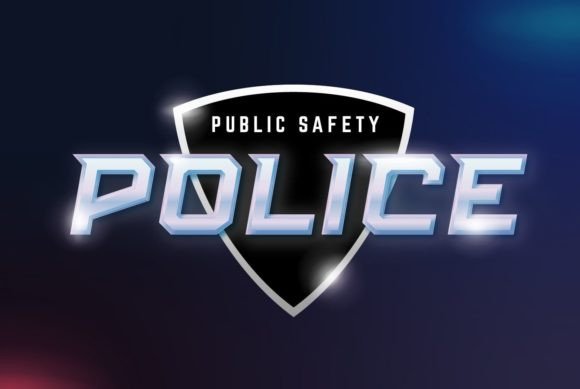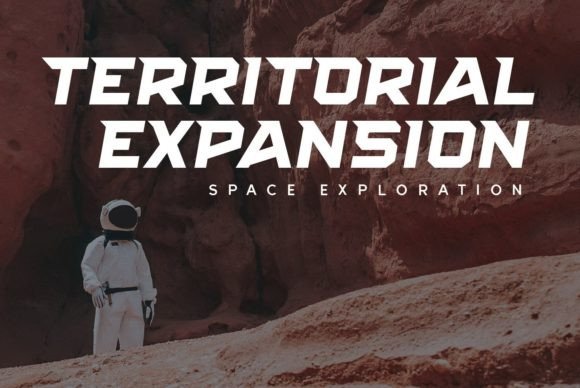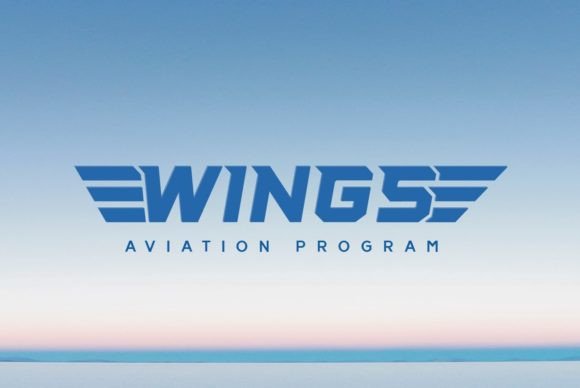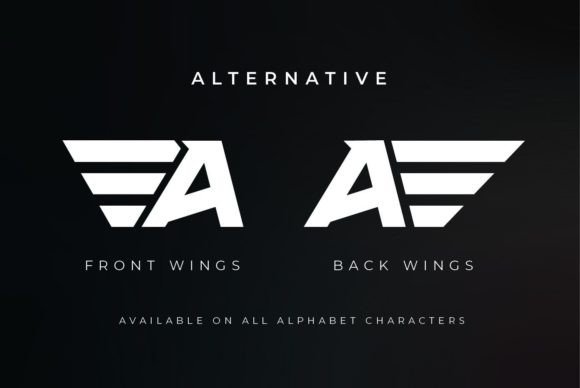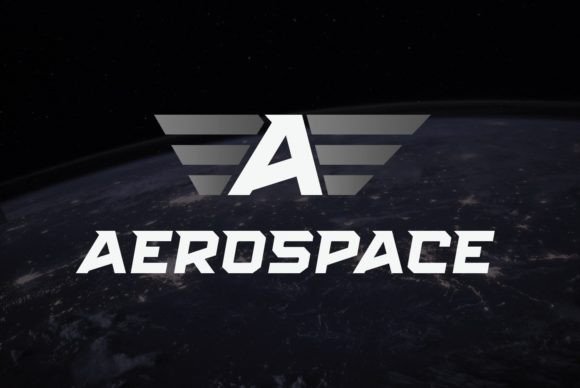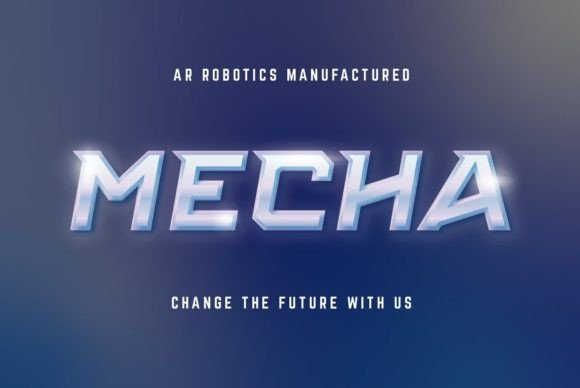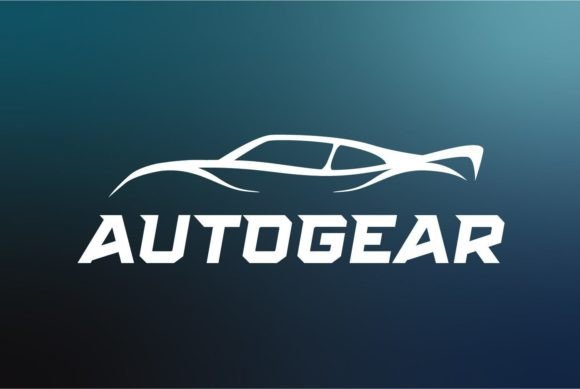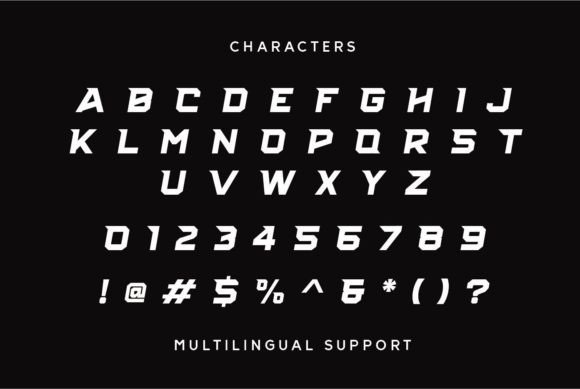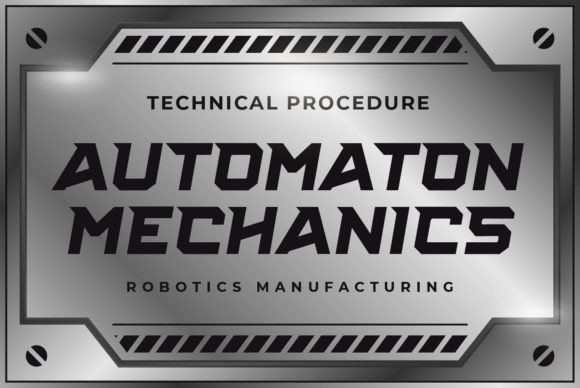
Space Captain Font
SPACE CAPTAIN FONT SPECIMEN
Space Captain is a solemn and modern slab serif font, perfect for crafty projects that need striking typography! Use it for branding projects, birthday cards, personal branding, sports logos, and more. Your designs will stand out!